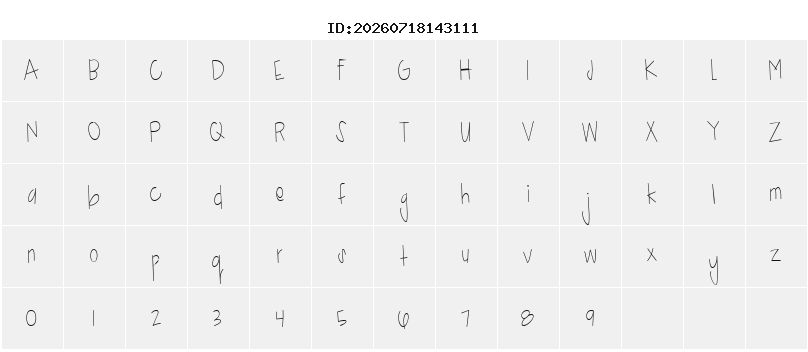
About CK Growing Up.ttf
CK Growing Up.ttf is a modern, elegant sans-serif font designed for ultimate readability and visual harmony. Perfect for branding, headlines, web design, and print materials.